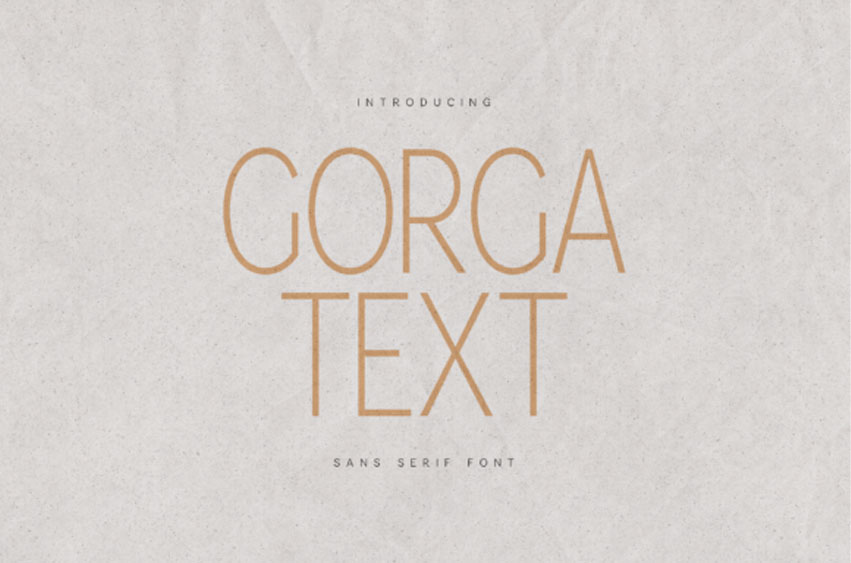
Gorga Text Font
Gorga Text Font was created for designers who value space, rhythm, and balance. Its carefully proportioned letterforms, soft curves, and open counters create a calm visual flow — making it ideal for brands that communicate confidence through simplicity.
Every character has been adjusted with attention to spacing and harmony, ensuring consistency across headlines, logos, and body text.
It performs beautifully at large sizes, while remaining readable and polished in smaller compositions.
Ideal For
Luxury Branding
Minimal Logos
Fashion Labels
Architecture Studios
Interior Design Brands
Skincare & Wellness Packaging
Editorial Layouts
Web Design
Corporate Identity
Premium Lifestyle Projects
Why Designers Choose Gorga Sans:
• Elegant without being decorative
• Minimal without feeling cold
• Modern but not trendy
• Strong for headlines
• Sophisticated for brand systems
It pairs beautifully with high-contrast serifs, making it ideal for font duos and layered typography.
Aesthetic Direction:
Think:
Scandinavian minimalism
Soft luxury
Modern editorial
Neutral branding systems
Contemporary architecture
Gorga Sans is built for brands that understand that simplicity is power.